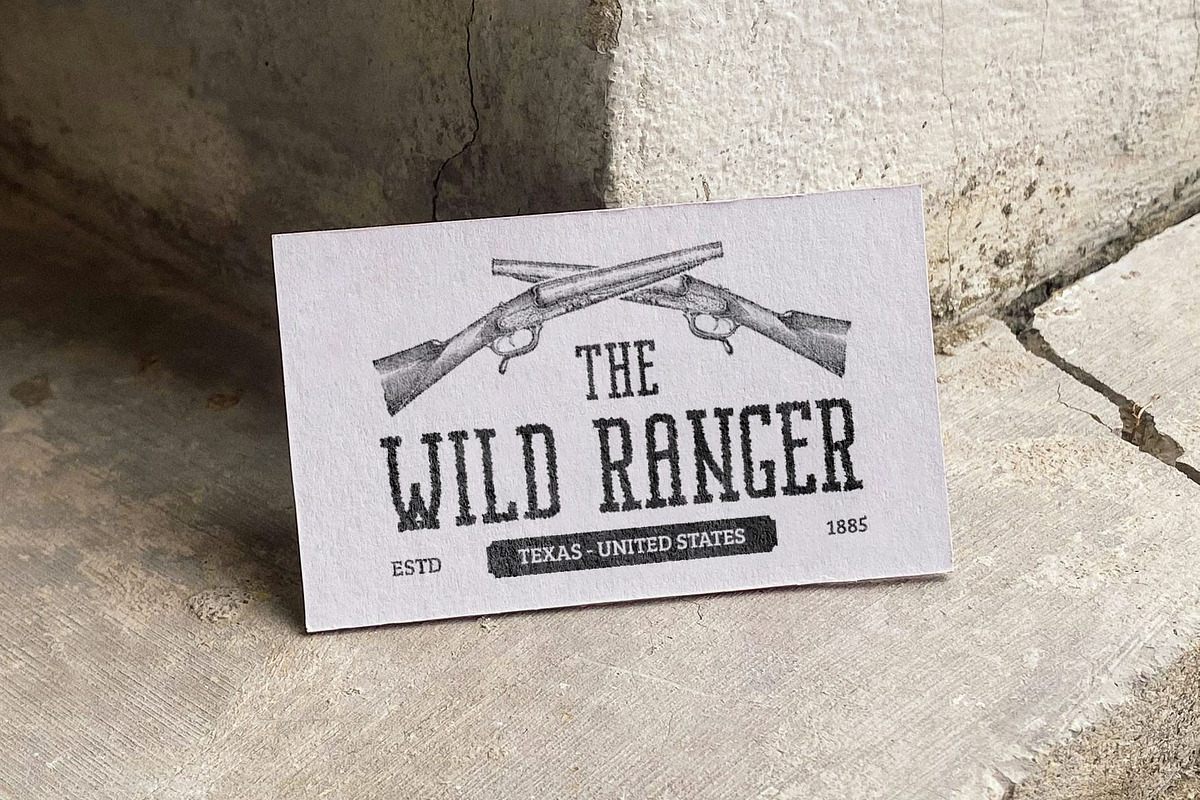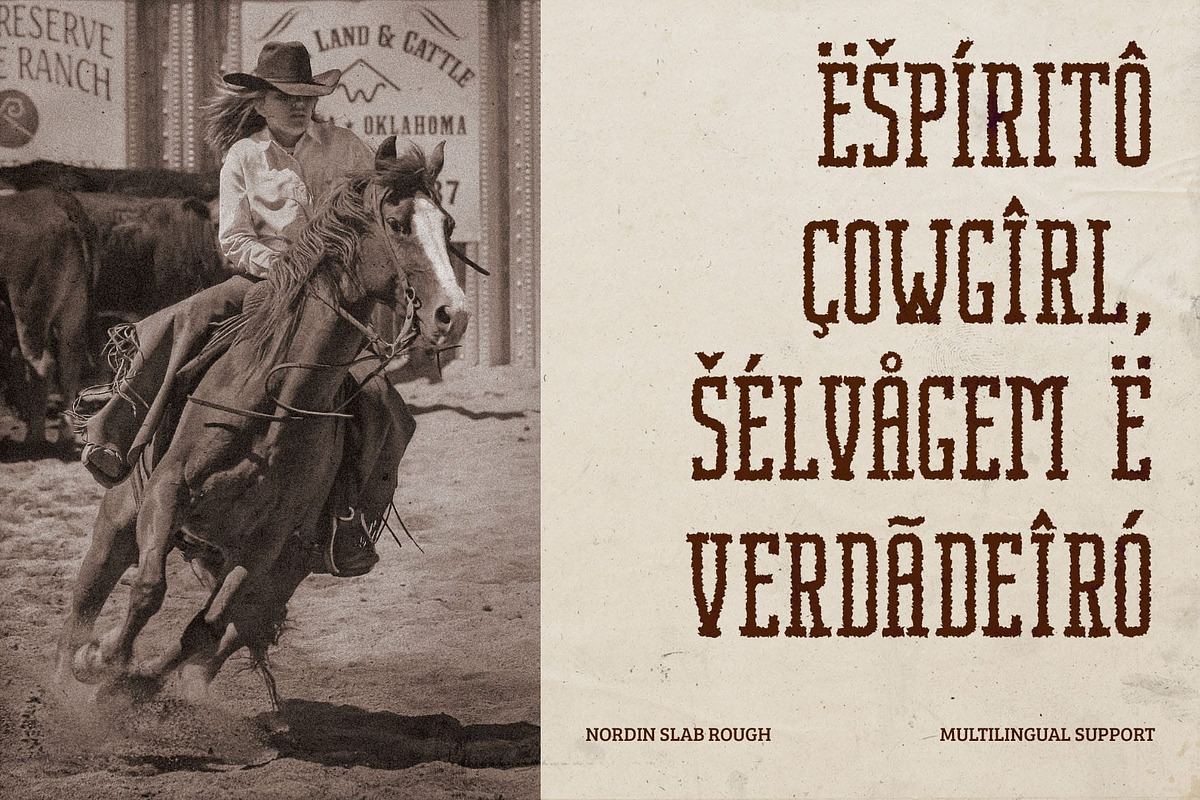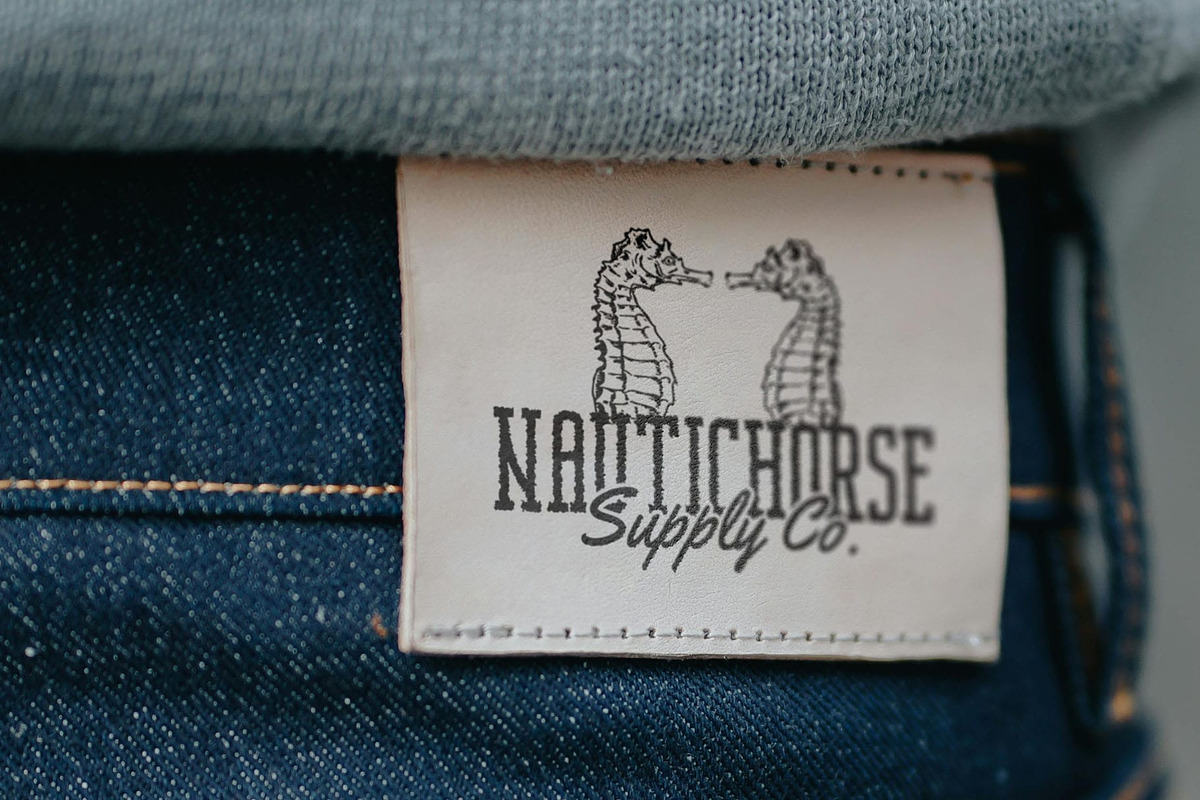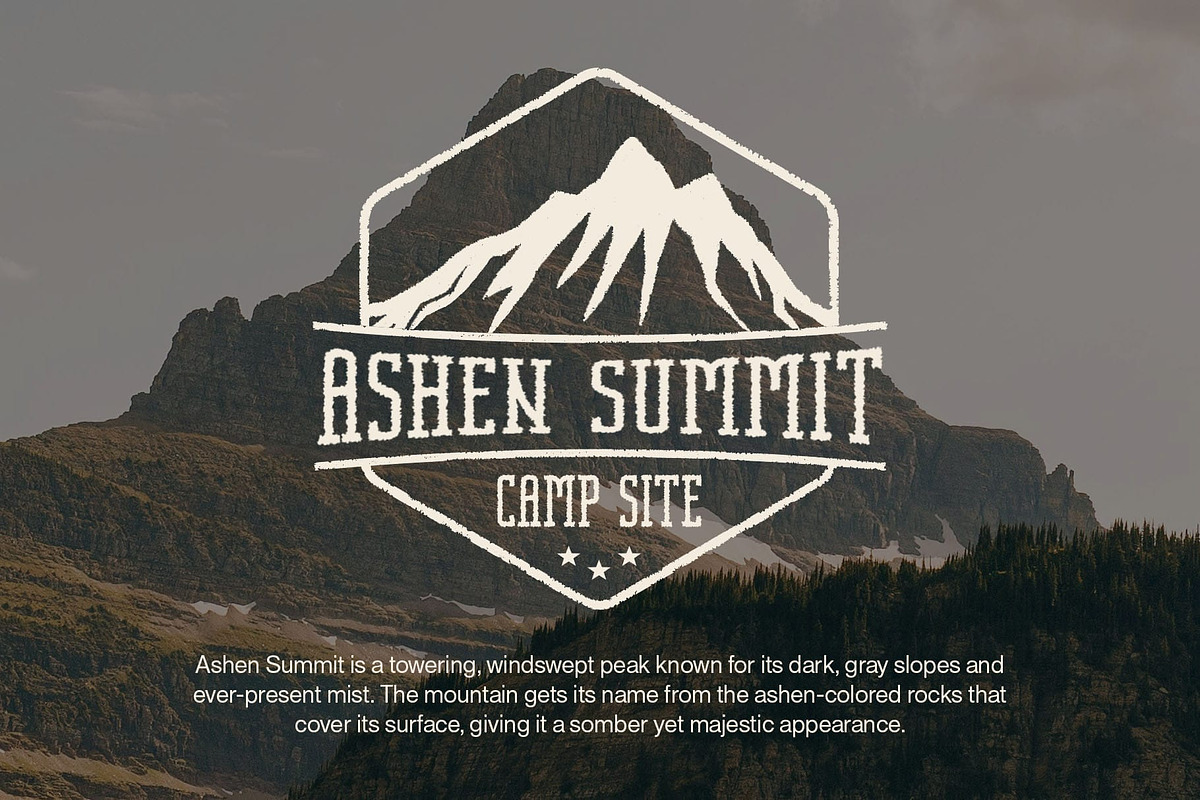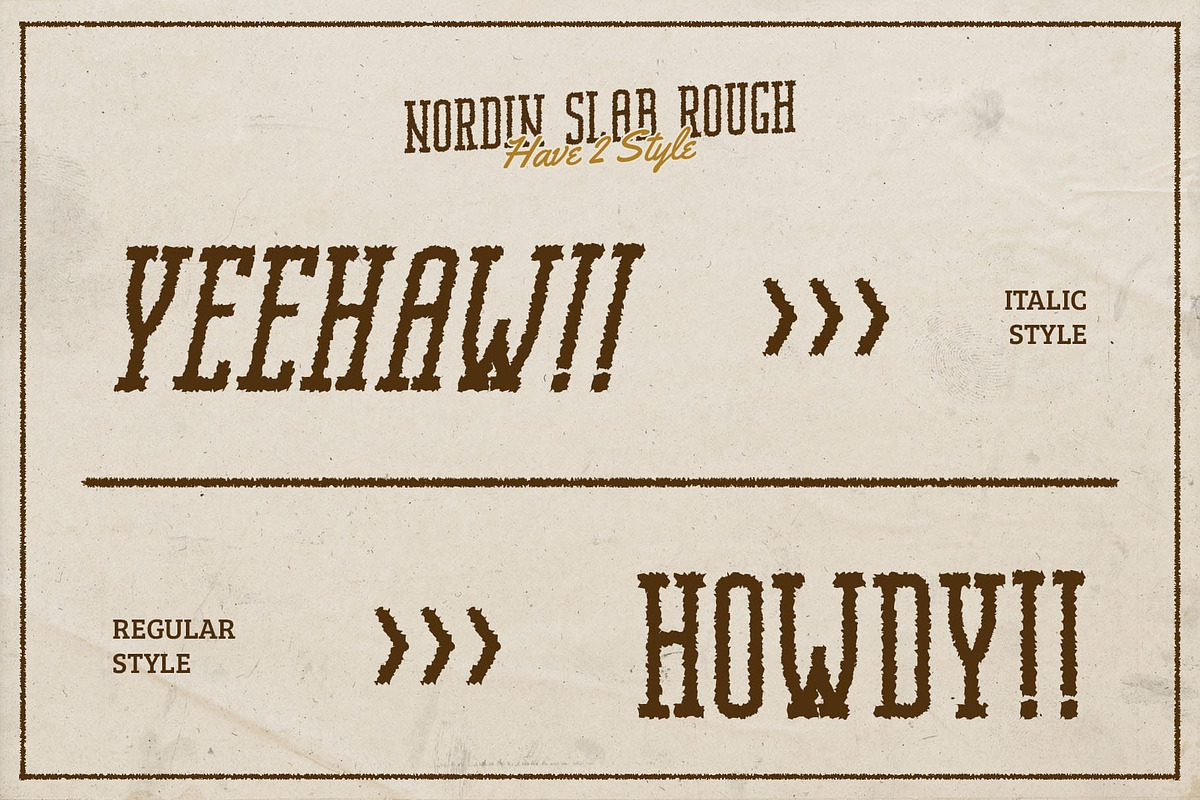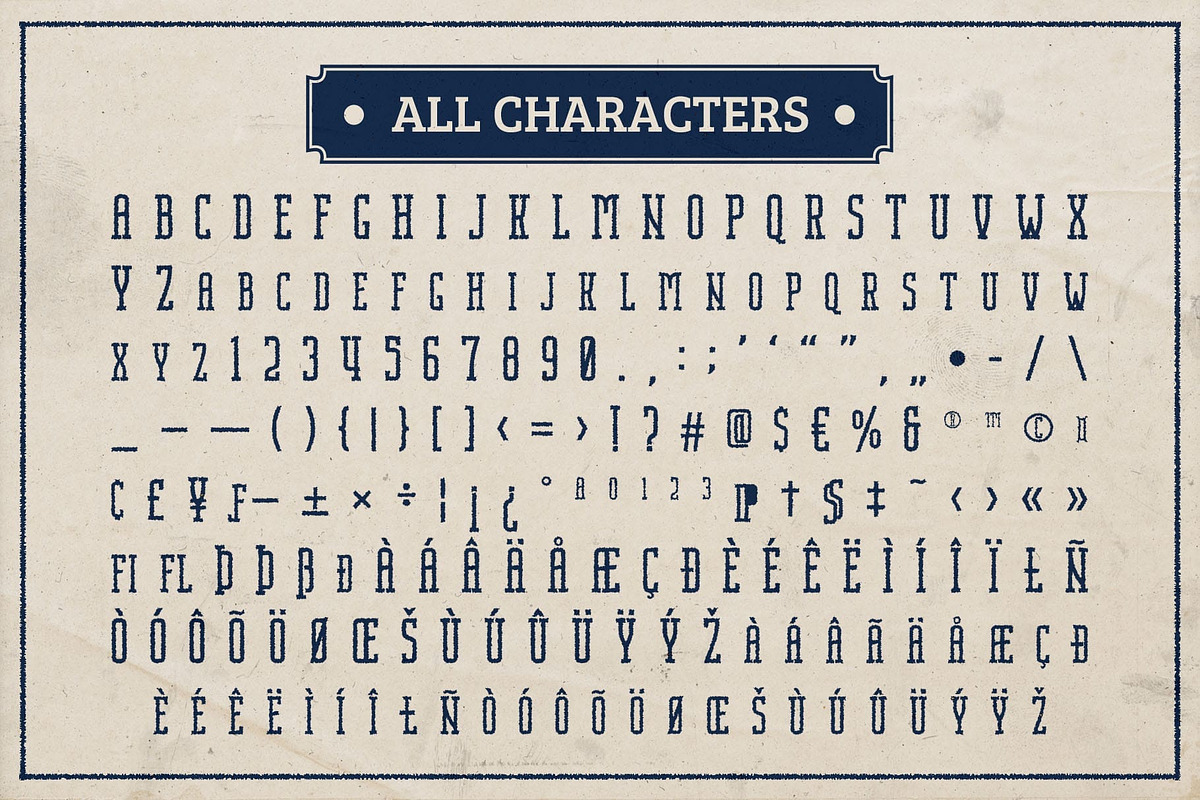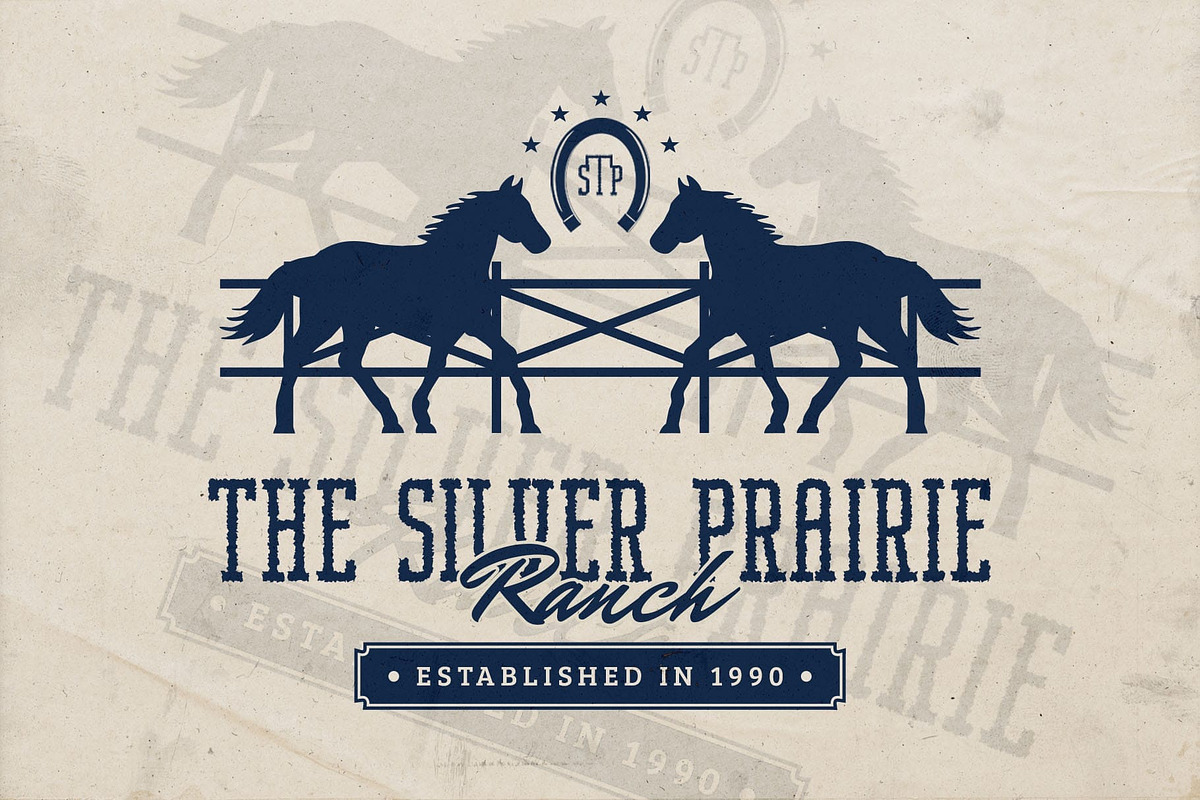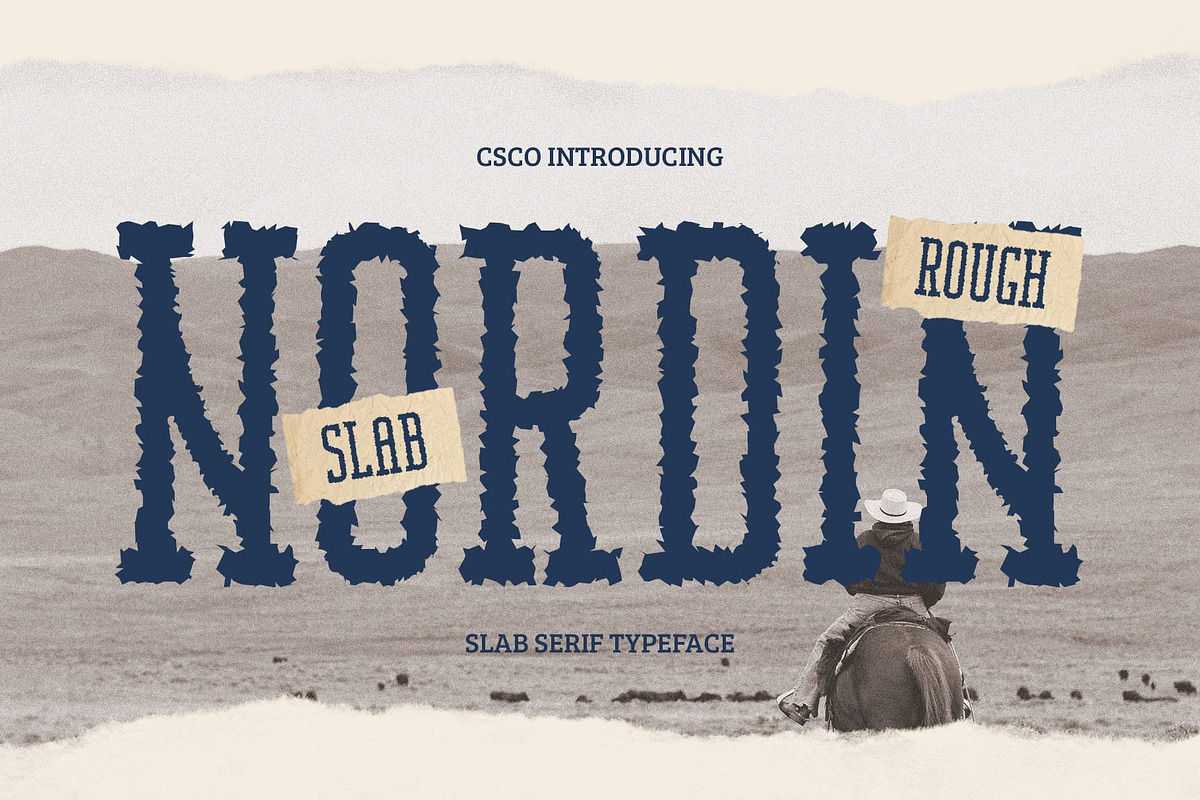
Nordin Slab Rough
Nordin Slab Rough Font – Bold, Rugged, and Modern
Modern Slab Serif with a Rugged Appeal This is a modern slab serif font that features a condensed design with a strong, robust structure. The narrow and denser letterforms give it a bold and contemporary feel, while the rough effect on the surfaces adds a rugged, textured touch that evokes an organic and imperfect vibe.
Bold and Strong with a Touch of Retro This font combines a powerful slab serif structure with a retro character, making it perfect for designs that need to make a statement. Its condensed form ensures space efficiency while maintaining a commanding presence, ideal for headlines and impactful visuals. The vintage-inspired rough texture adds a nostalgic yet contemporary feel, making it stand out in any design project.
Rough Texture for an Organic, Imperfect Vibe The rough effect on the letterforms brings an authentic, handcrafted look to the design, giving it a casual and imperfect character. This texture enhances the font’s boldness, making it perfect for designs aiming to combine strength with a vintage touch.
Versatile for Branding and Editorial Design Ideal for branding, editorial design, and visual projects, Nordin Slab Rough excels in designs that require a slightly casual yet professional look. Its strength, retro appeal, and rough texture make it perfect for projects that demand attention while maintaining a sense of authenticity and character.